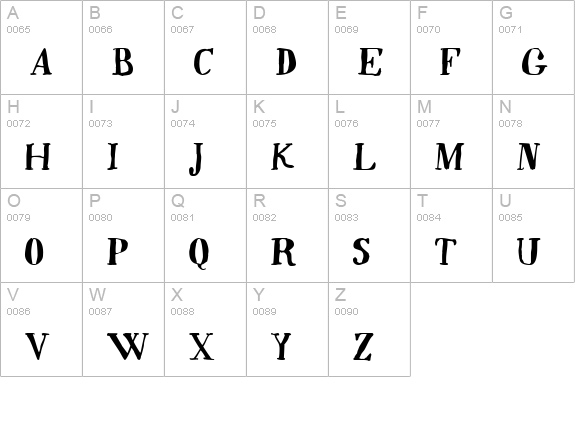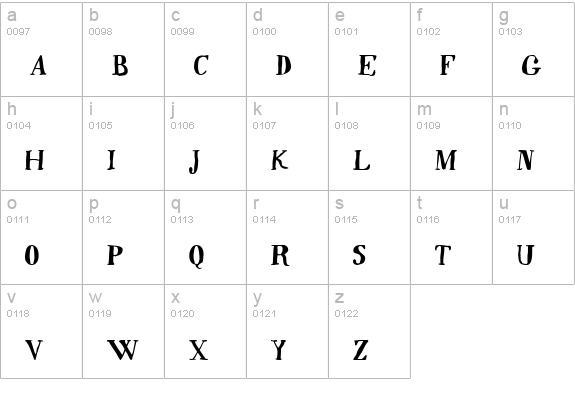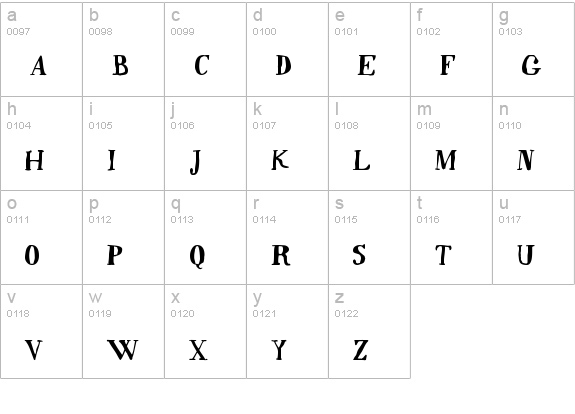
Quincy Bold Font Details
Quincy Bold is a strong, high-contrast variant in the Quincy typeface family \xE2\x80\x94 well suited to headlines, attention-grabbing titles, and strong calls-to-action.
Introducing Quincy Bold, a stunning display font that exudes confidence and captures attention with its bold and charismatic presence. This font embodies the perfect balance between modernity and timeless elegance, making it a versatile choice for a wide range of design projects. With its strong and powerful letterforms, Quincy Bold commands attention and adds a touch of sophistication to any design. Whether you're creating eye-catching headlines, striking logos, or impactful posters, this font will elevate your designs to new heights. What sets Quincy Bold apart is not only its captivating aesthetics but also its accessibility. This font is freely available for download at FontsMarket.com, making it easily accessible to designers, creatives, and typography enthusiasts alike. Embracing the philosophy of making great design accessible to all, Quincy Bold allows anyone to create stunning visuals without breaking the bank. The versatility of Quincy Bold is further enhanced by its extensive character set, which includes uppercase and lowercase letters, numerals, punctuation marks, and an array of special characters. This comprehensive set ensures that you have everything you need to bring your creative visions to life. With its bold strokes and impeccable attention to detail, Quincy Bold is a font that demands attention and leaves a lasting impression. Whether you're looking to make a statement or simply want to add a touch of elegance to your designs, this font is sure to exceed your expectations. So, why wait? Download Quincy Bold for free at FontsMarket.com and unleash your creativity with this striking and versatile font. Let Quincy Bold be the bold and charismatic voice that speaks volumes in your design projects.